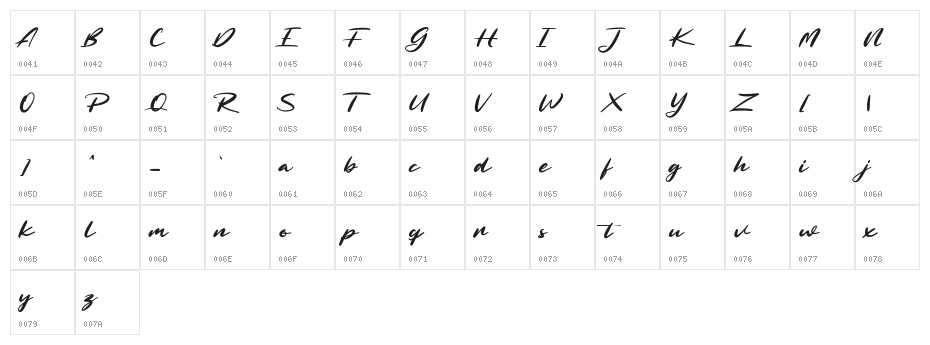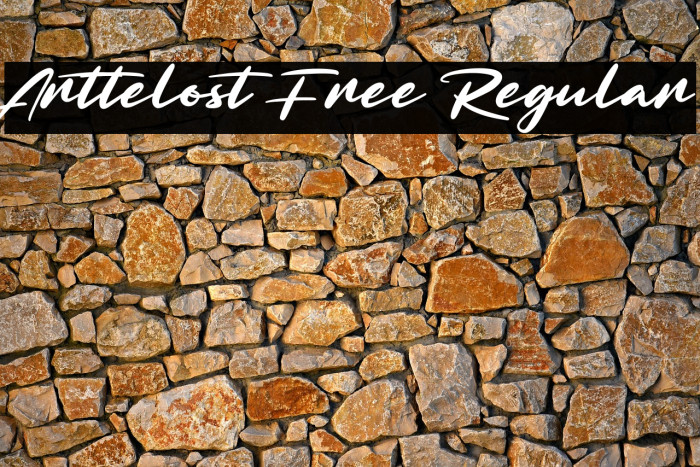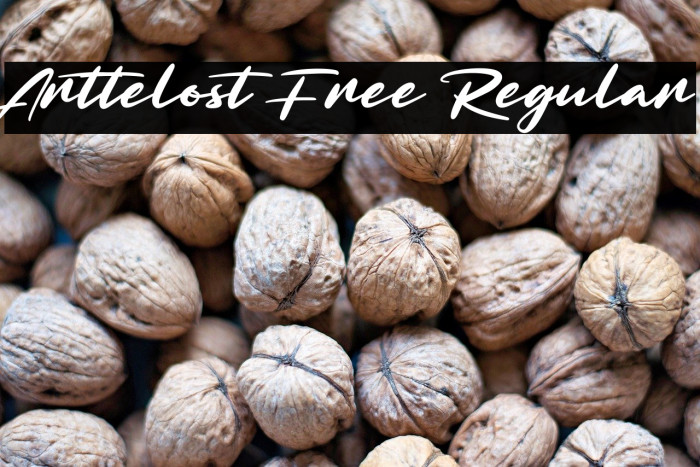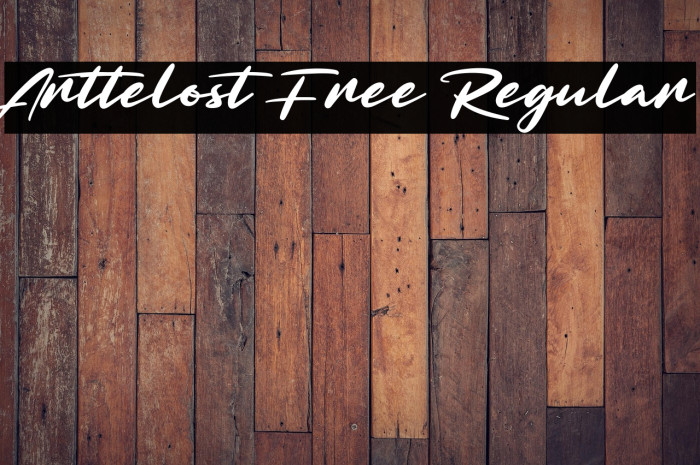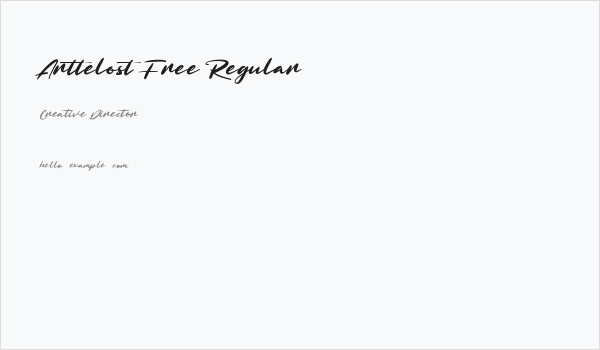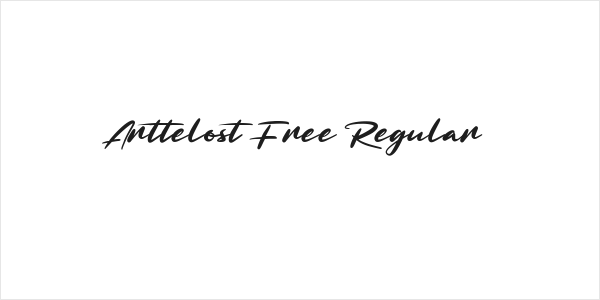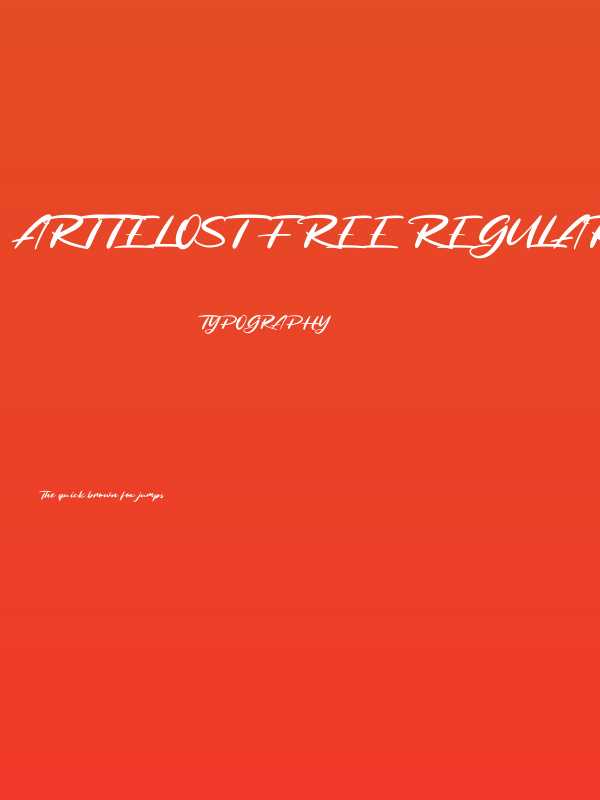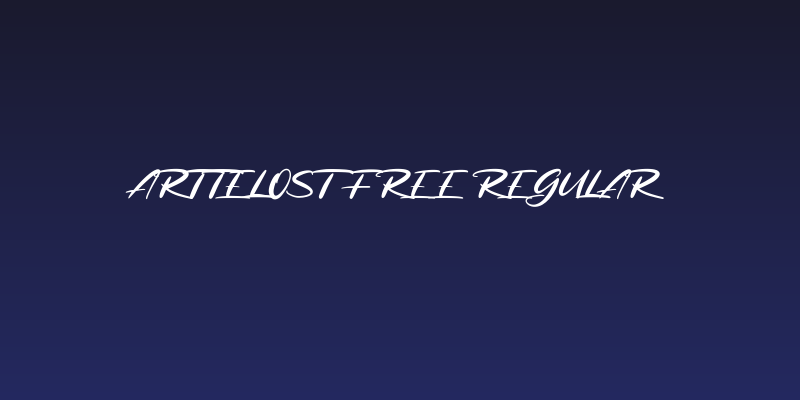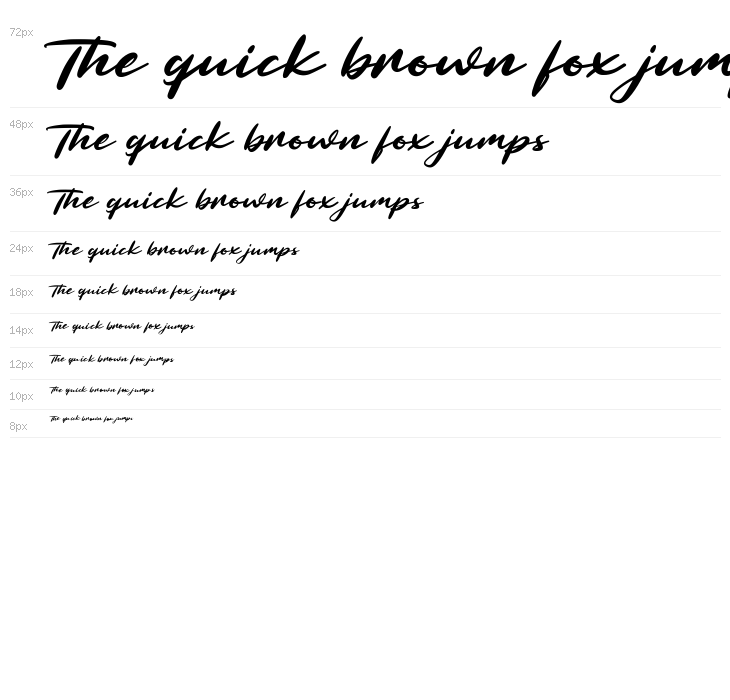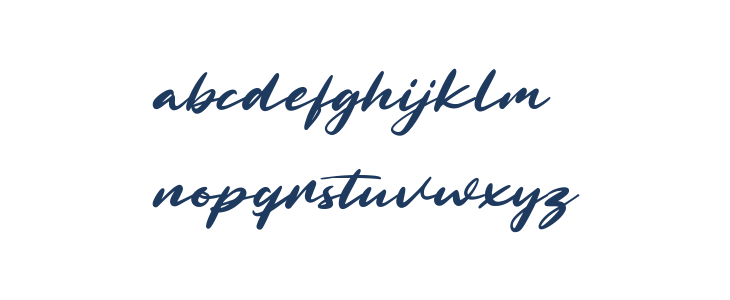
Arttelost Free Regular Font
Arttelost Free Regular Description
This font exhibits a dynamic and fluid script style, characterized by its elegant and flowing letterforms. The strokes are smooth and connected, giving it a handwritten appearance. The uppercase letters are bold and slightly slanted, while the lowercase letters maintain a consistent flow with a slight inclination. The font's design is both modern and classic, making it versatile for various applications. Its high contrast in stroke thickness adds to its readability and visual appeal, making it suitable for both digital and print media.